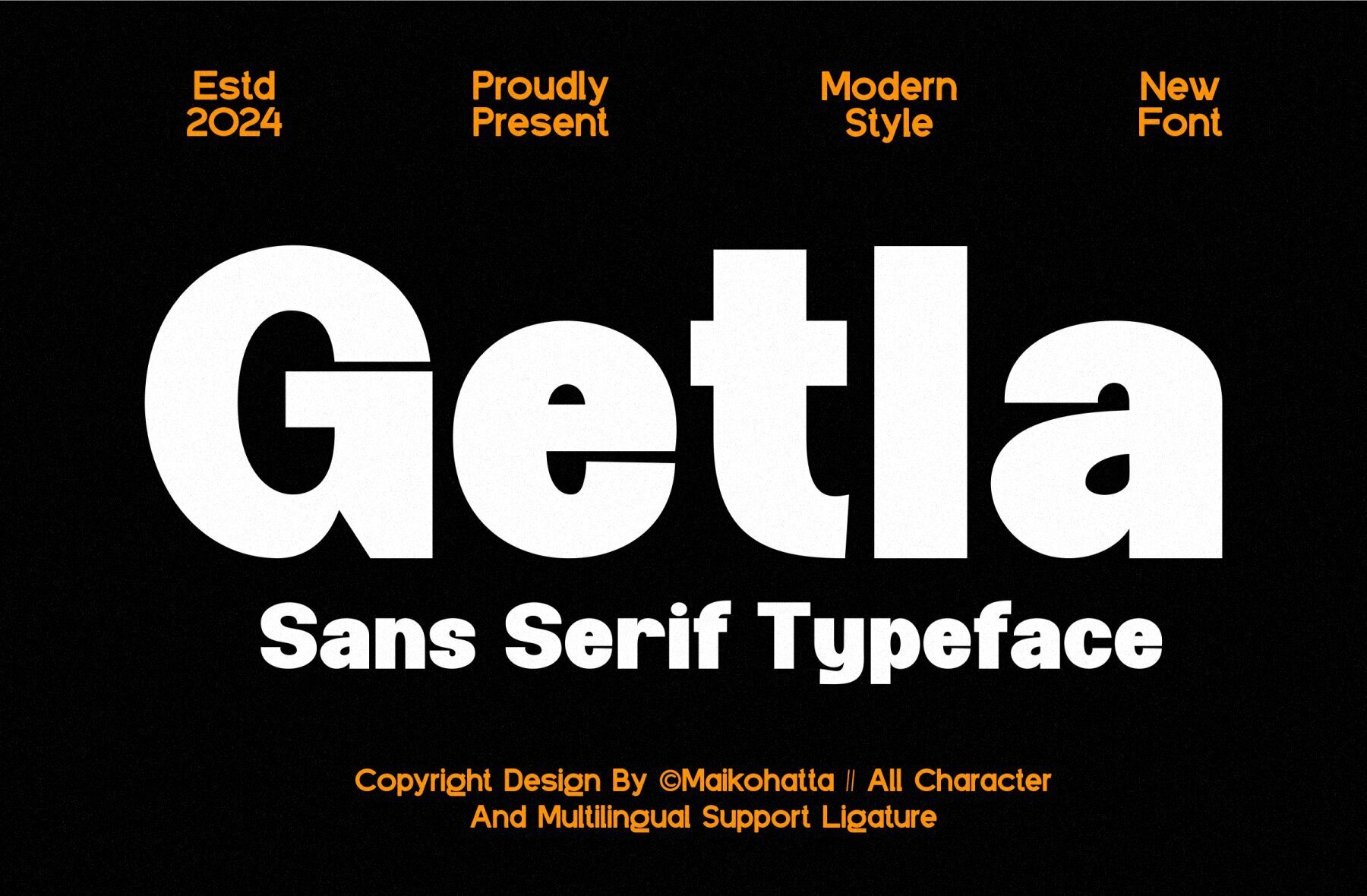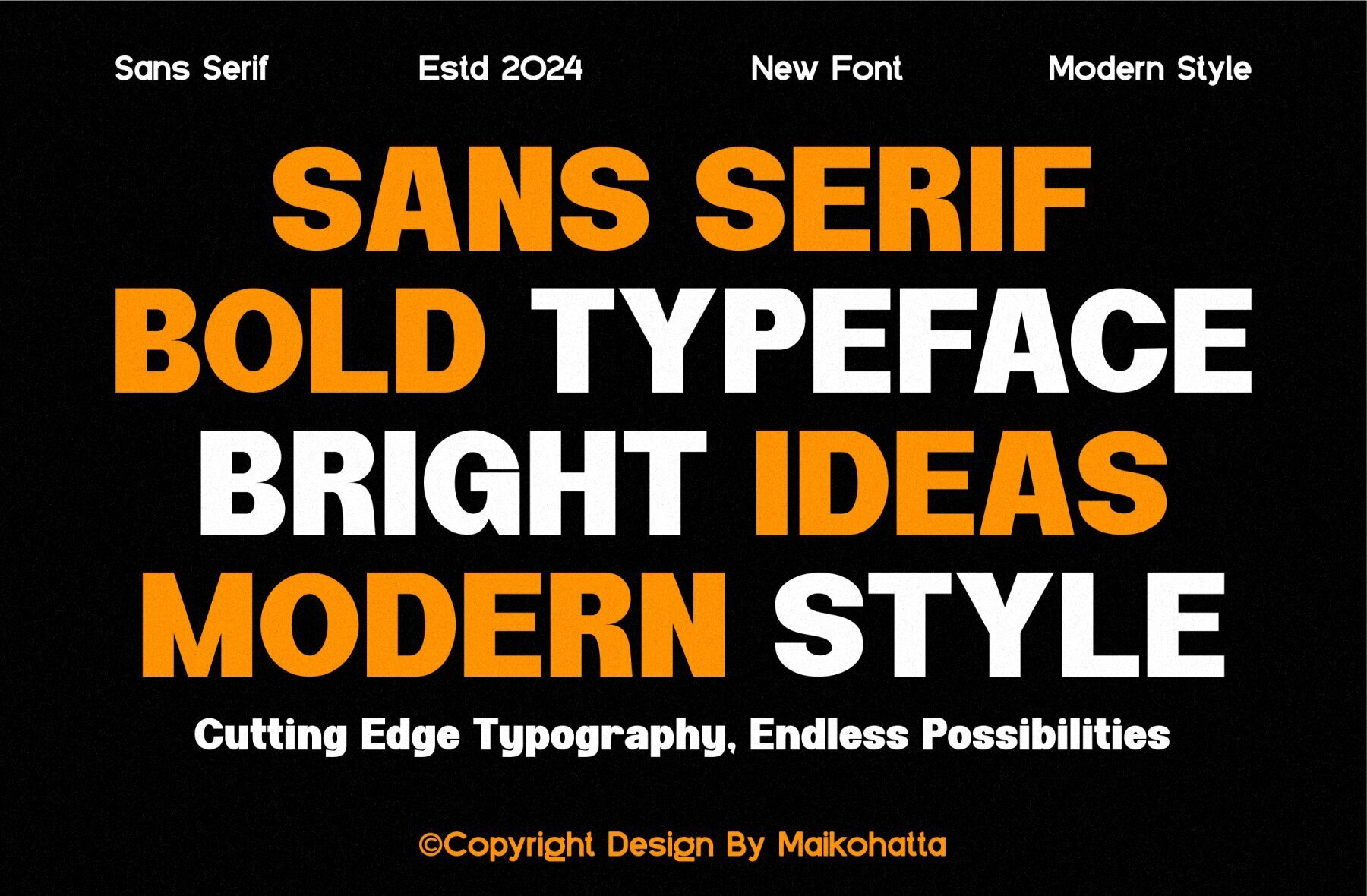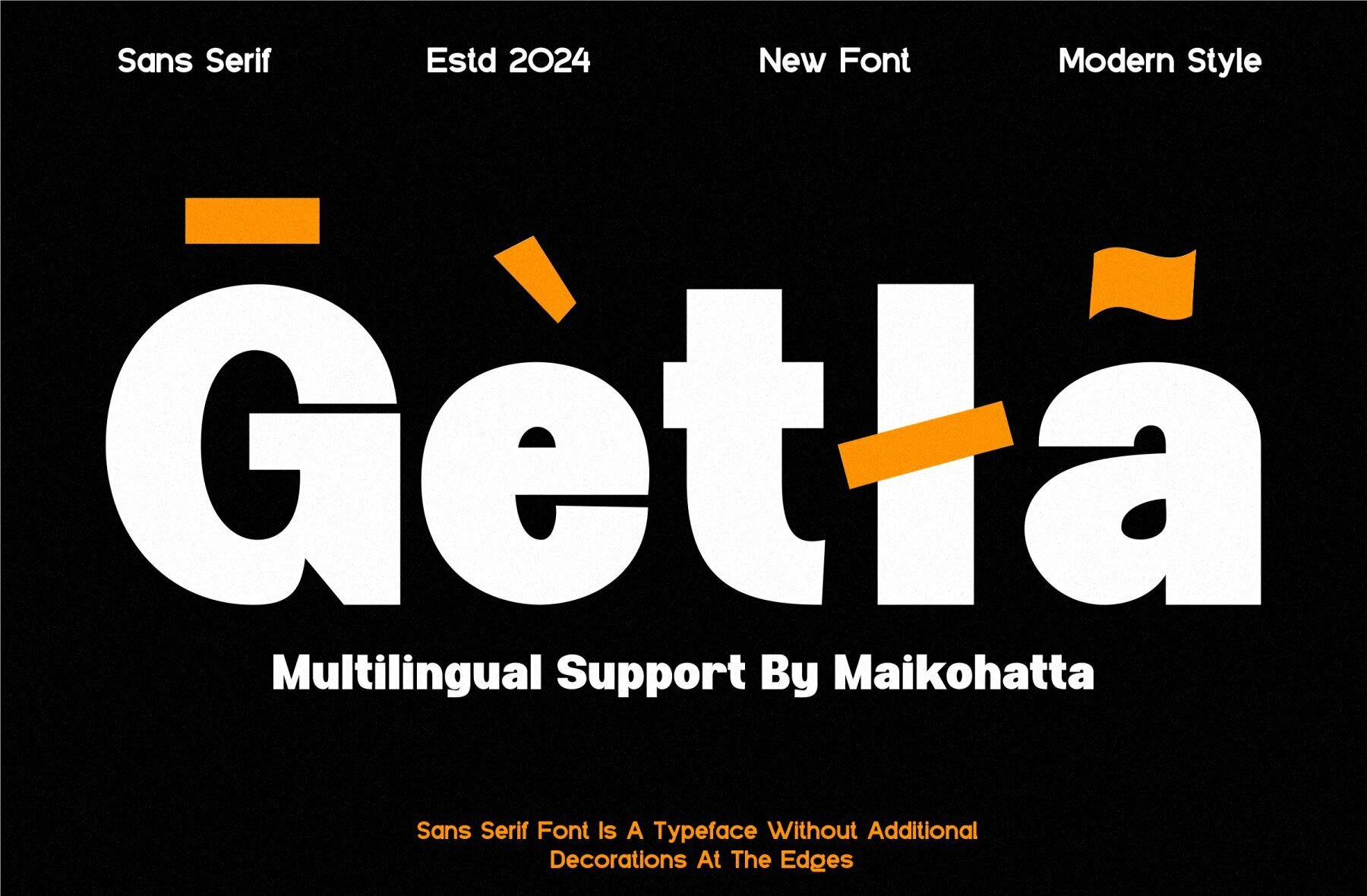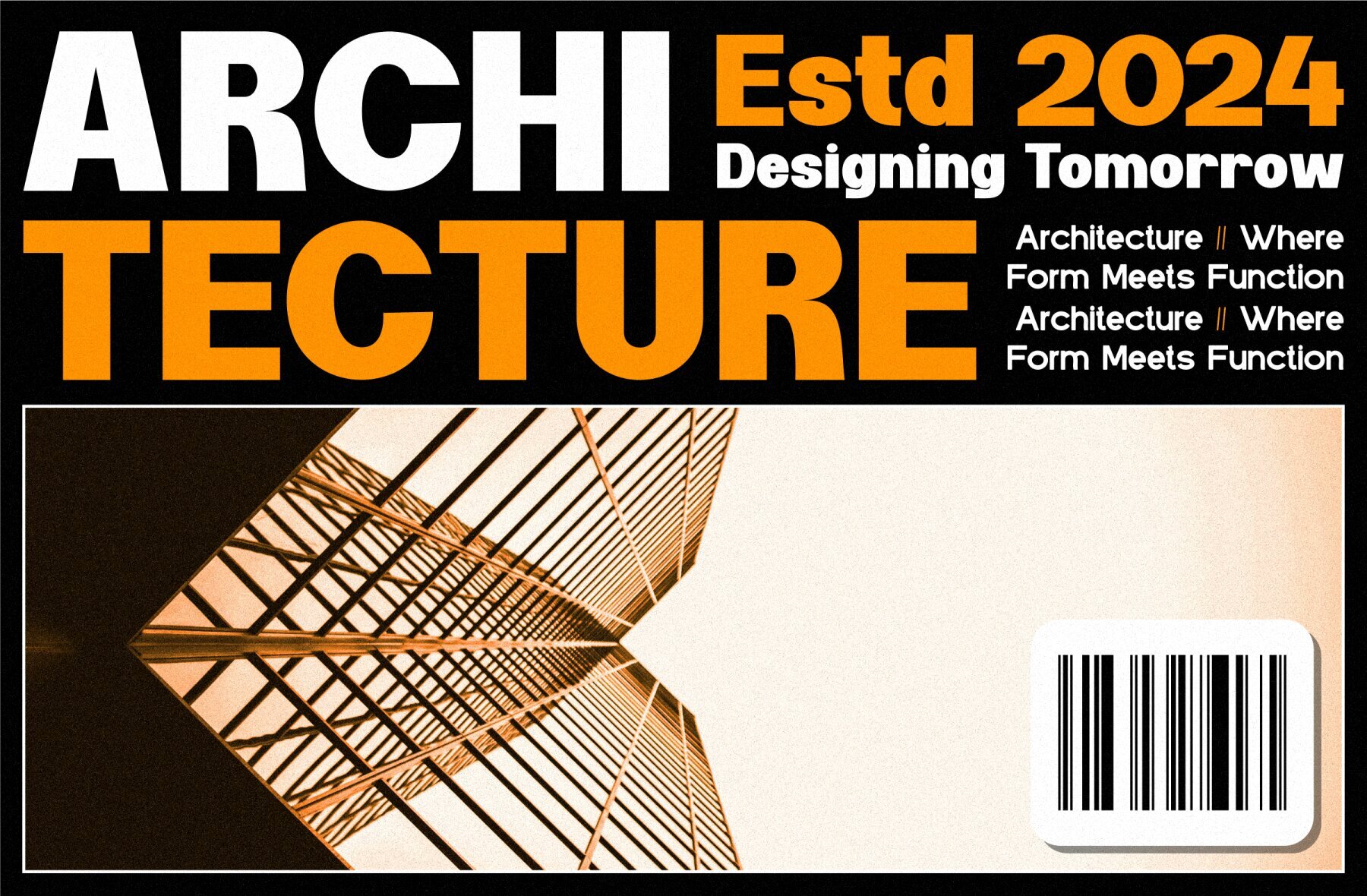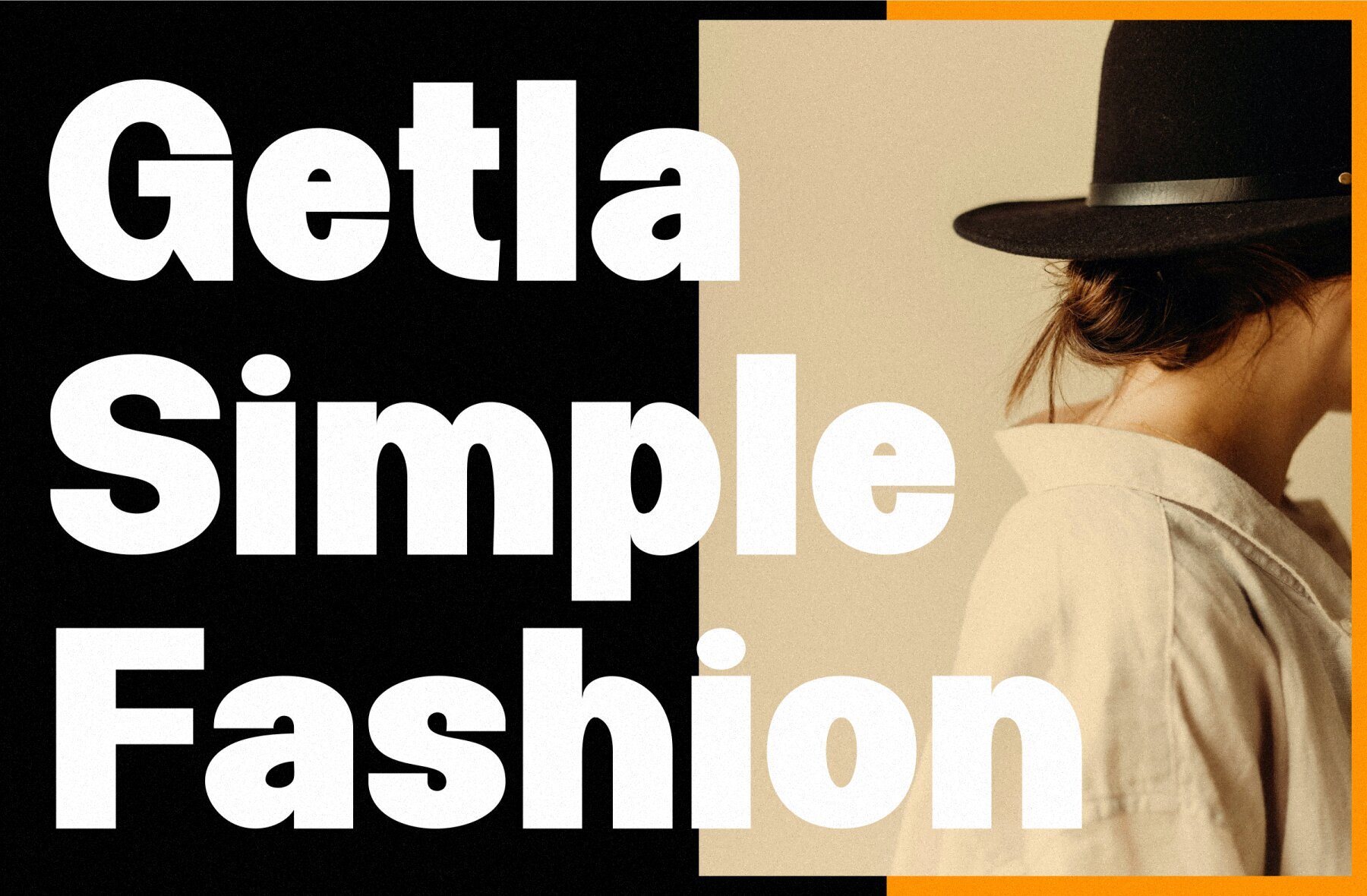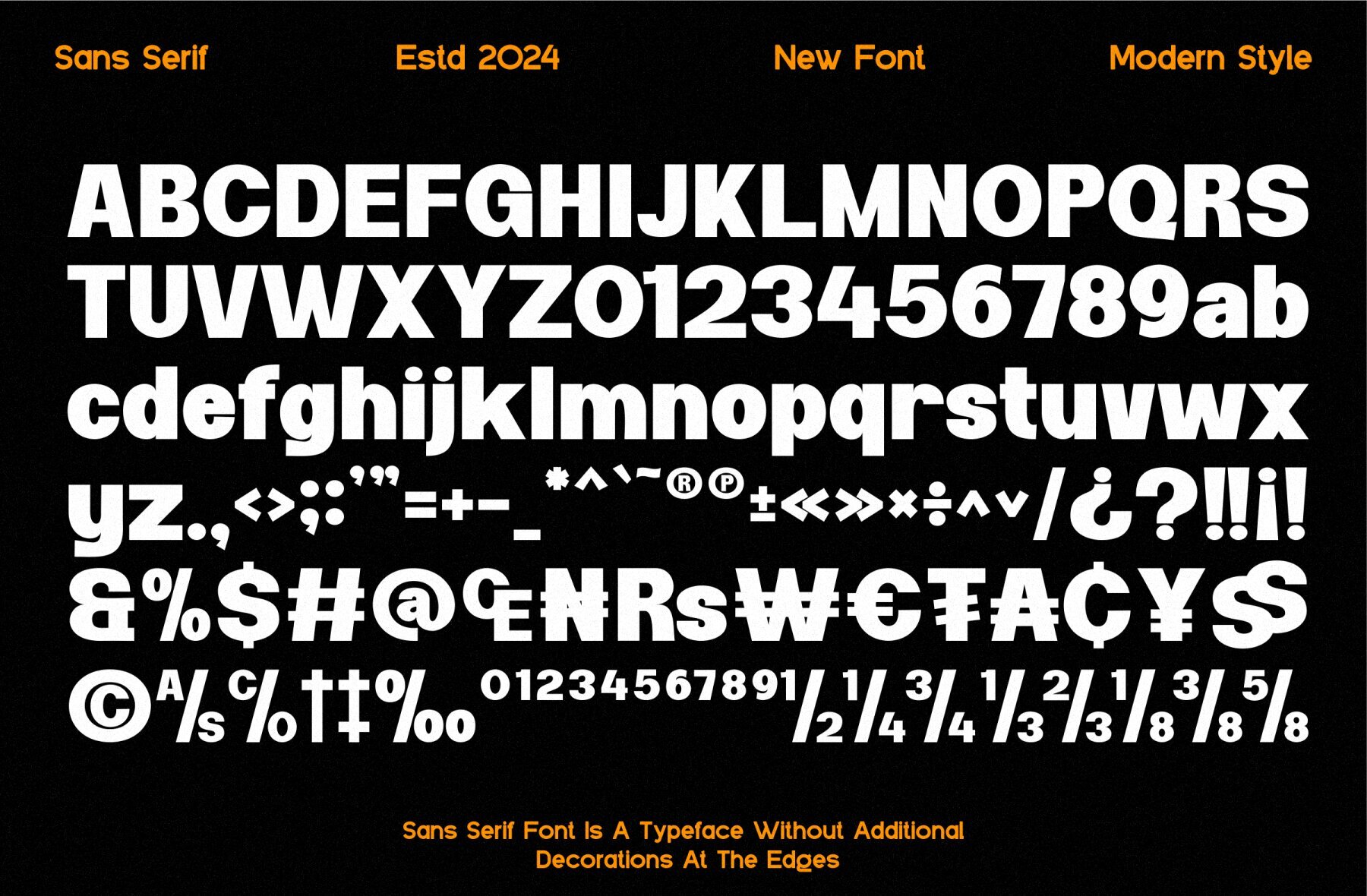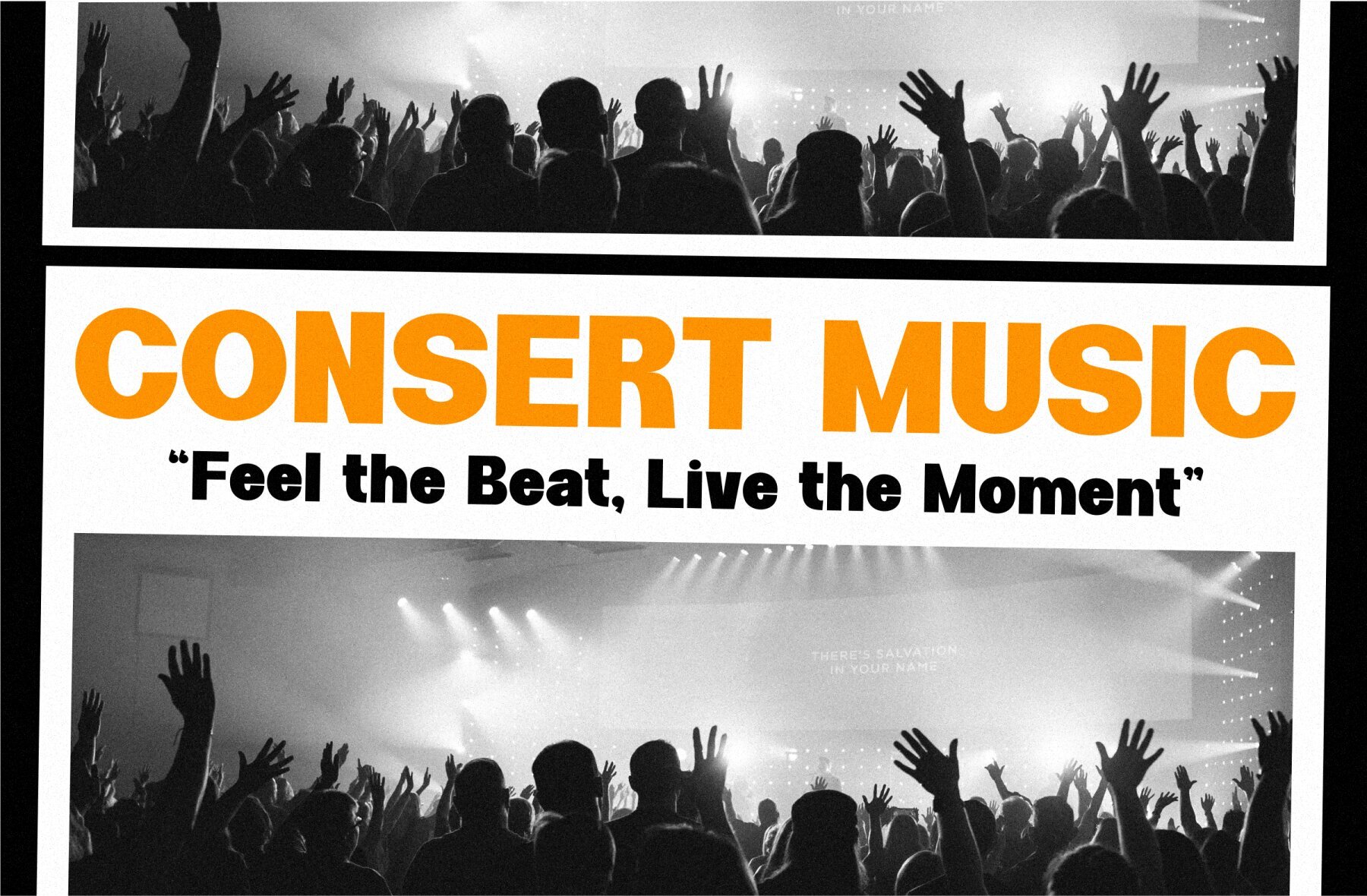
Getla Font
Getla Regular
Introducing Getla - a versatile sans serif typeface designed by Gilang Ternadho. Ideal for countless design contexts, this font offers a clean, professional, and contemporary aesthetic. Its simplicity and visual appeal make it a go-to choice for modern typography and graphic design.
- Uppercase and Lowercase letters
- Multilingual support